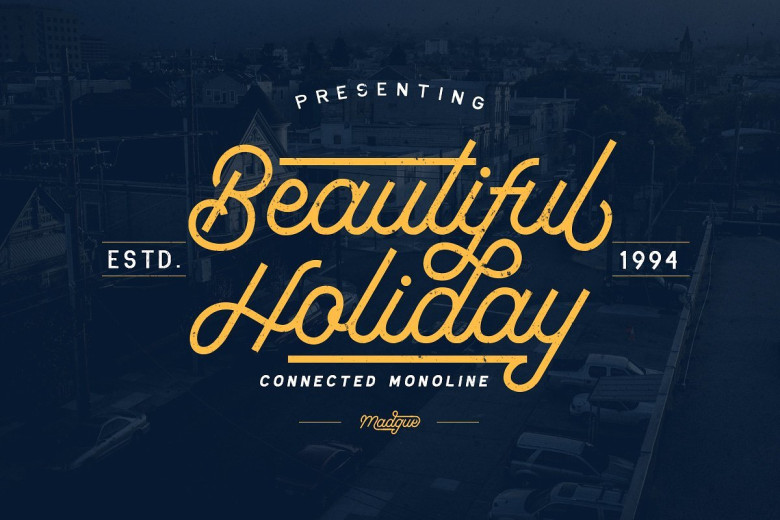
Beautiful Holiday Font
Continue to be a beautiful font designed and shared by professional designers: Sarid Ezra. He is from Yogyakarta, and in the past I had the honor of introducing his other great fonts: Shutter Stone, Billenia Script… And now is Beautiful Holiday Font. This is unique monoline for you. You can use this font for making an awesome logo or whatever you want. Also this font contain ligatures, so many stylistic alternate , swash. This font is also support multi language.